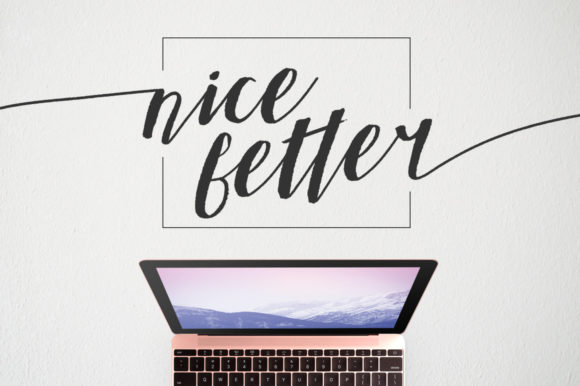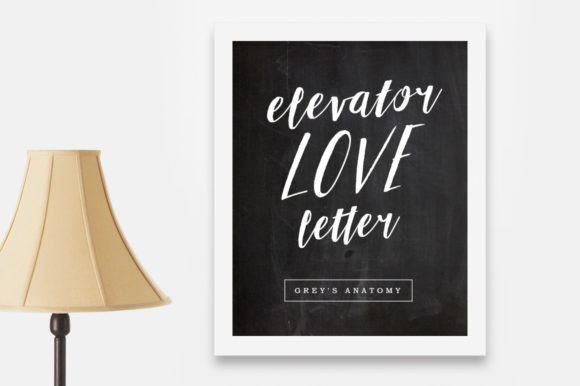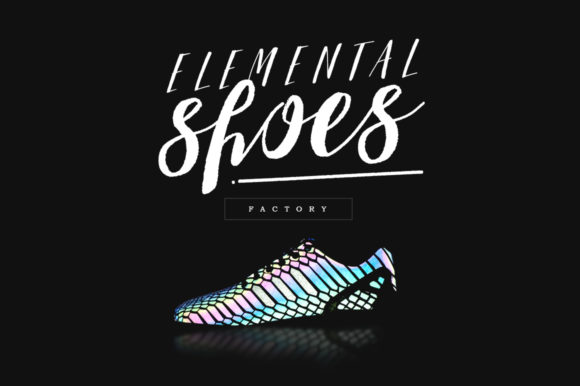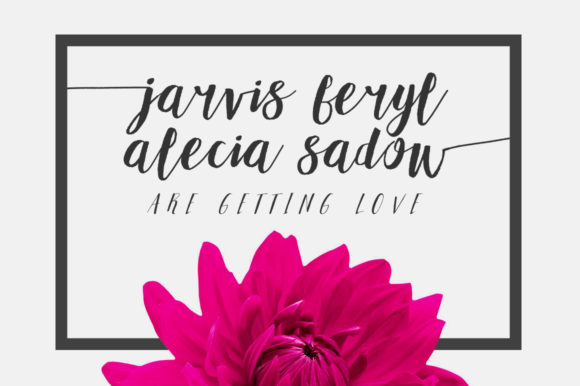
Introduction to Adellove Font
Adellove is a beautiful handwritten font with an authentic brush feel.
Adellove is perfectly suited to stationery, logo, typography quotes, magazine or book cover, website header, clothing, branding, packaging design and more .